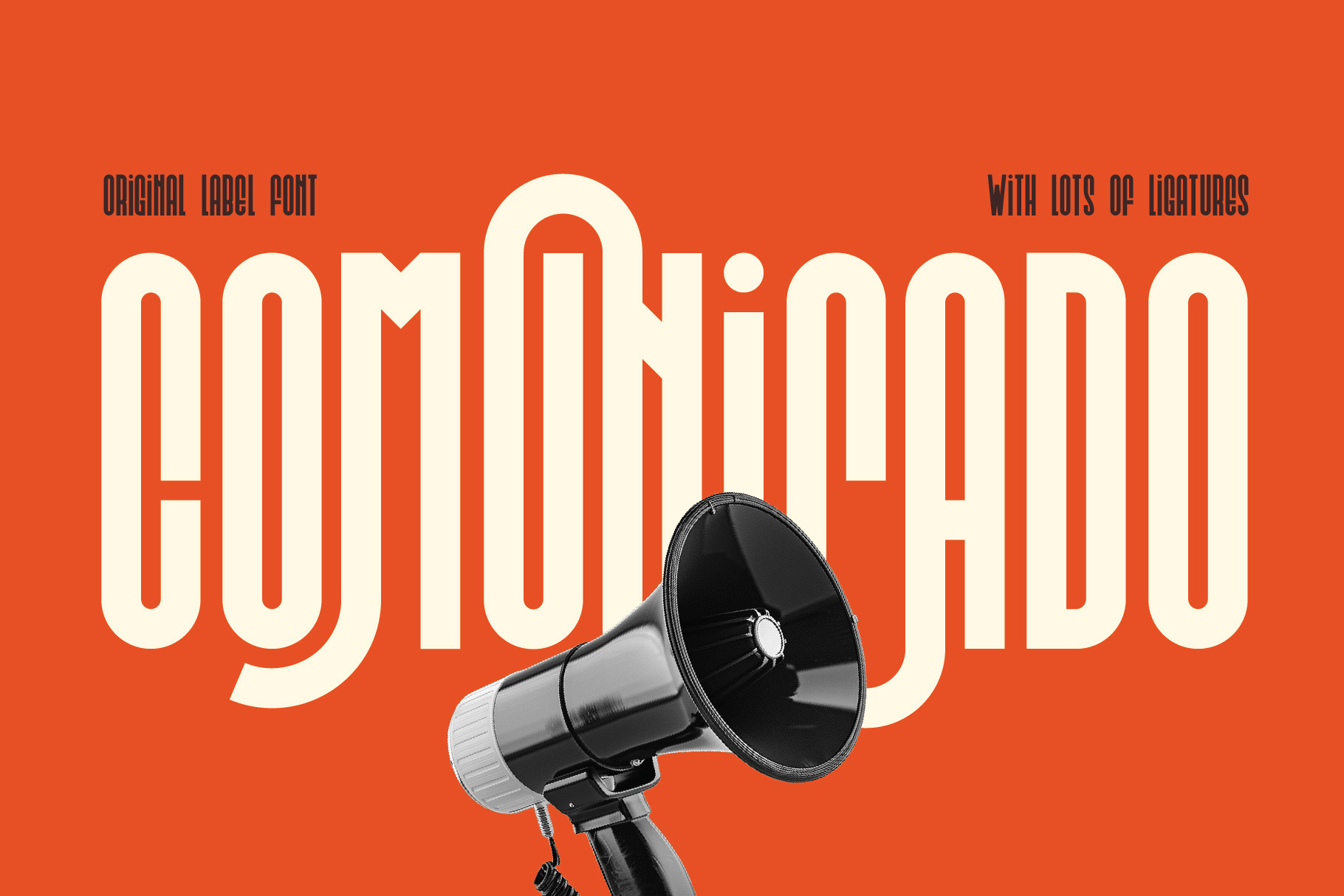
Comunicado Ligature Label Font
Unique, clean, condensed, sharp, ligature, monogram & label sans serif font. Comes with multilingual support & ligatures - great for your new logo, monogram or branding project.
- Multilingual support & ligatures
- Great for your new logo, monogram or branding project